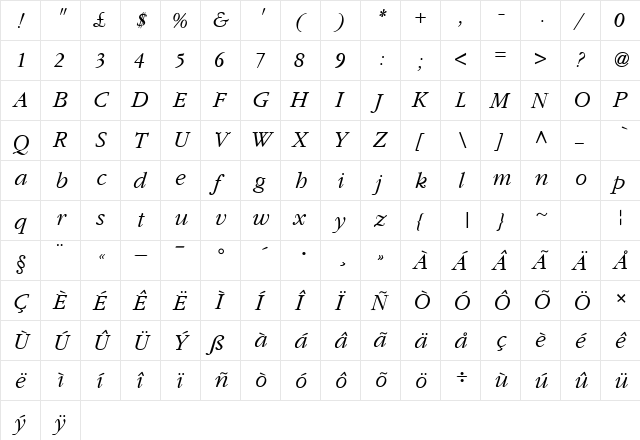
Skt Garland Italic
| Designer | Diacritical marks added by Bhikkhu Pesala. |
Design Context for Skt Garland Typeface
Skt Garland takes a measured approach to typography — its balanced proportions and neutral character make it a reliable workhorse for both digital and print work. Its italic angle brings a sense of urgency and motion to the letterforms.